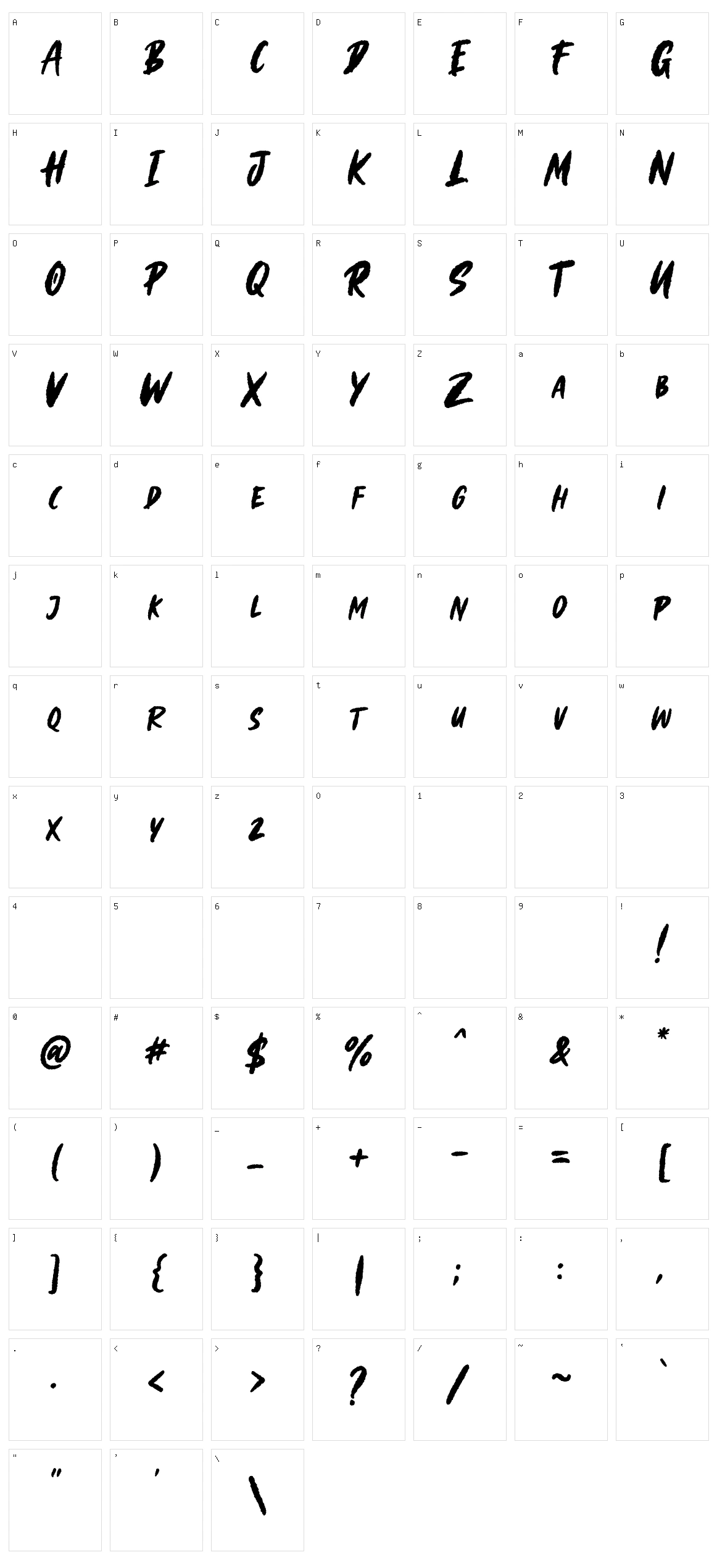
The free font Gillattoz is carefully designed by Weape Studio, showcasing a thoughtful balance of creativity and usability and falls under the Script font style. When you download the ZIP file, it contains only 41.86 KB of font files, making it lightweight and quick to download. Please review the license details below to understand permitted usage and distribution rights. If license information is not available, we recommend using this font for personal projects only or contacting the author directly for commercial usage permissions.
Gillattoz - 2019 by Weape Design